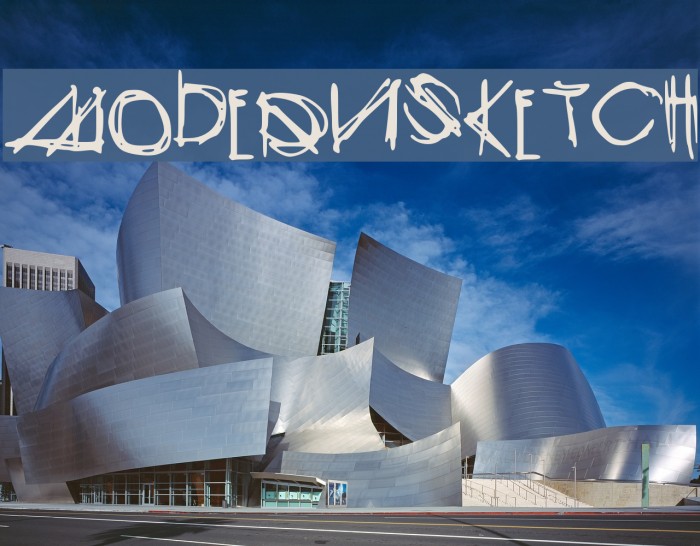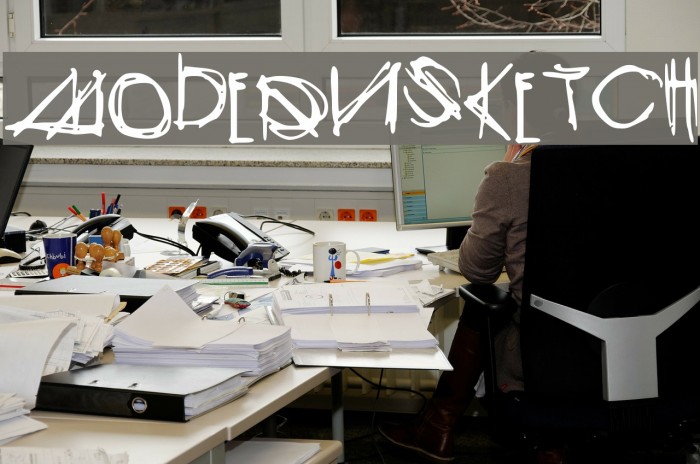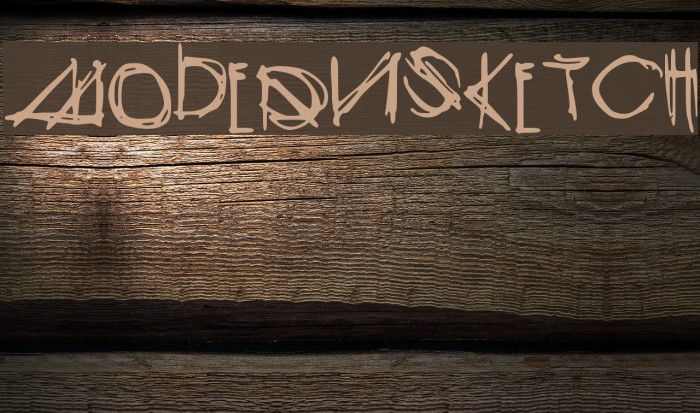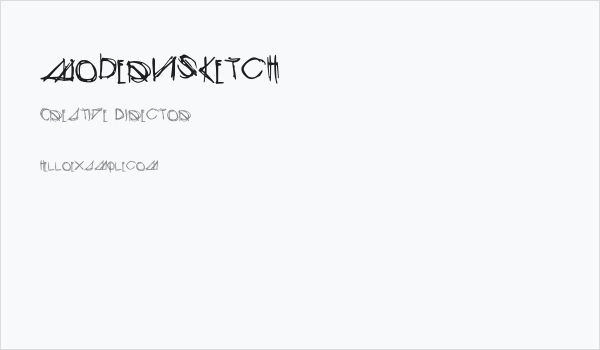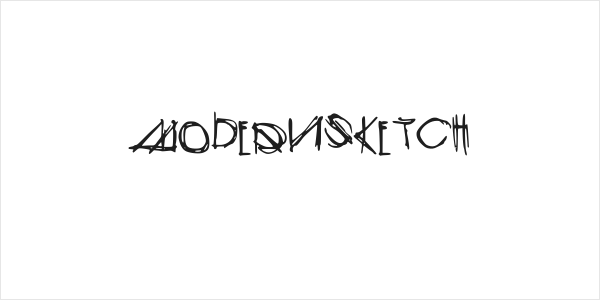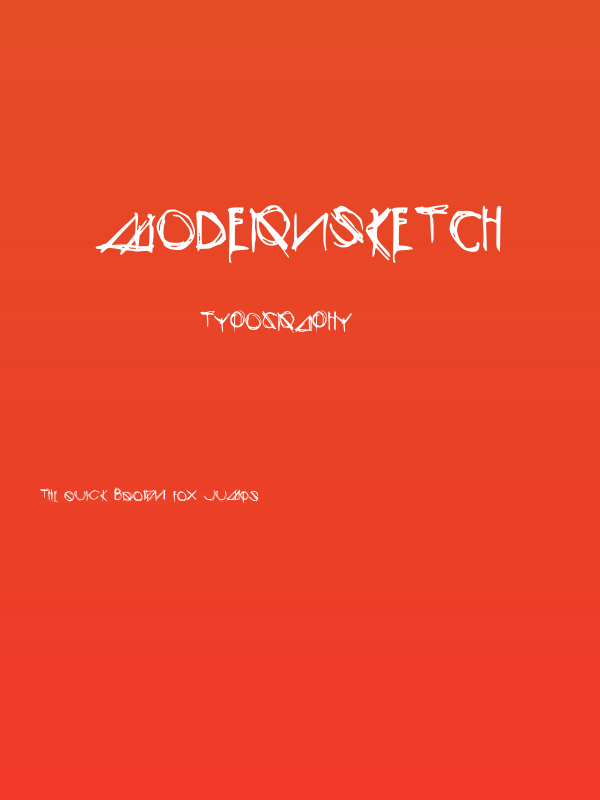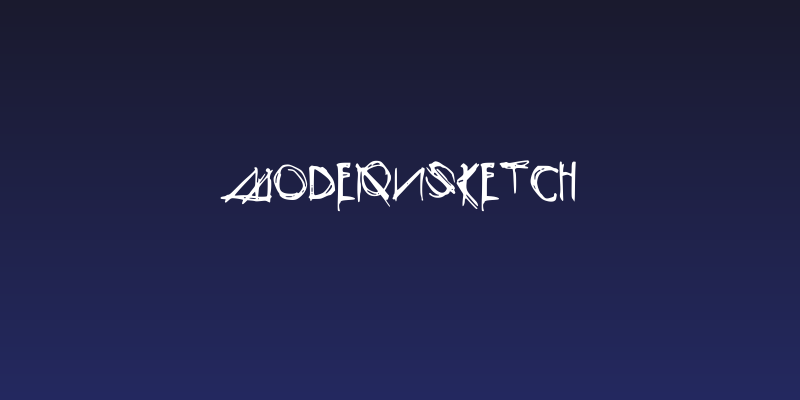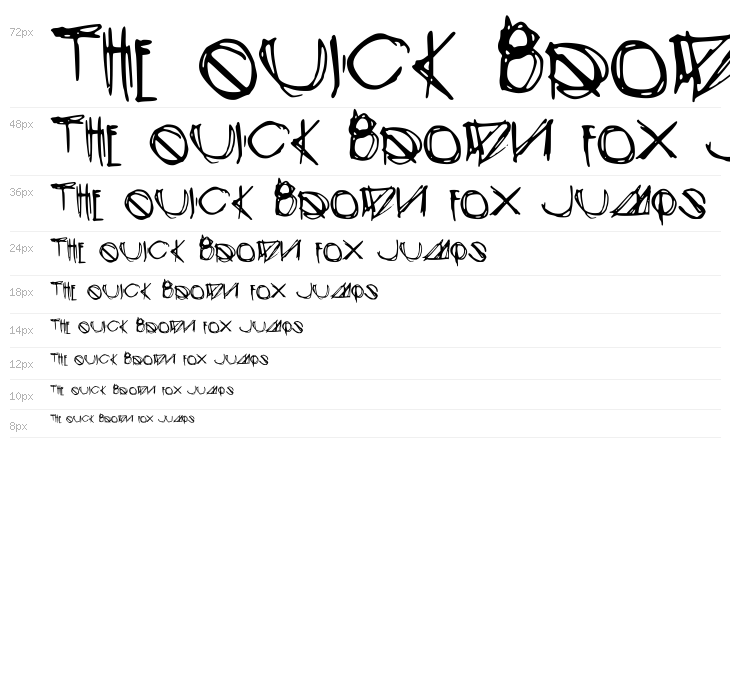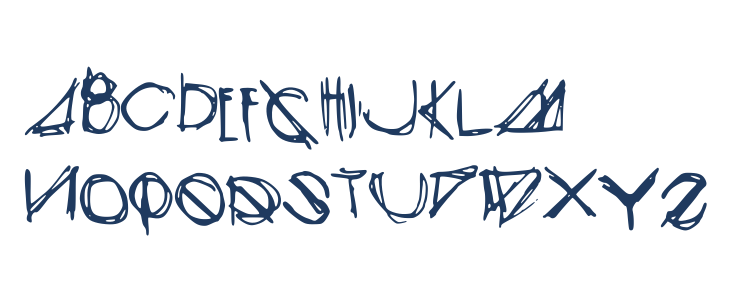
ModernSketch Font
ModernSketch Description
This font exhibits a highly creative and artistic style, characterized by its sketch-like appearance. Each letter is uniquely crafted with irregular strokes and a hand-drawn feel, giving it a dynamic and energetic look. The uppercase and lowercase letters maintain a consistent theme, with jagged edges and varying line thicknesses that add to its raw and expressive nature. The numbers and special characters follow the same aesthetic, ensuring a cohesive design throughout. This font is perfect for projects that require a bold and unconventional statement, capturing attention with its distinctive and edgy style.
| Overall Style | Modern, Artistic |
| Proposed Projects | Ideal for album covers, street art-inspired designs, edgy branding, and creative posters. |